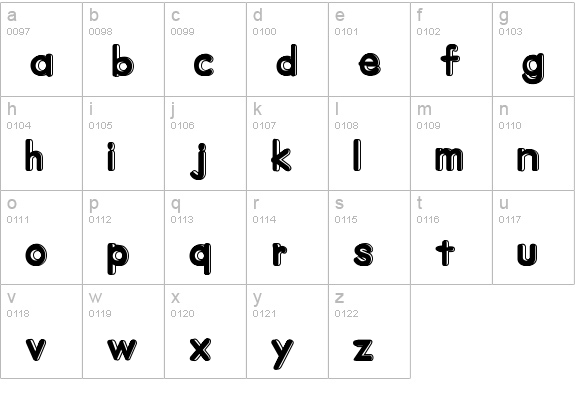
mumumu (sRB) Font Details
Introducing the exquisite mumumu (sRB) font, a modern and stylish typeface that is sure to elevate your design projects to the next level. This unique font features sleek lines and a contemporary aesthetic, making it perfect for a wide range of applications. What sets mumumu (sRB) font apart is not only its striking appearance but also the fact that it is available for free download at FontsMarket.com. This means you can easily access this beautiful font without any cost, making it a fantastic resource for designers, creatives, and anyone looking to add a touch of sophistication to their work. Whether you're working on a branding project, creating eye-catching graphics, or designing a stunning website, mumumu (sRB) font is sure to make a lasting impression. Don't miss out on this wonderful opportunity to enhance your designs with this exceptional font - download it for free today at FontsMarket.com!